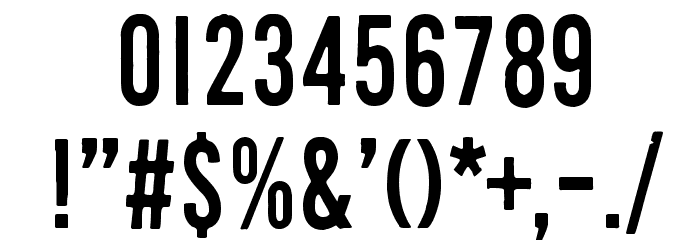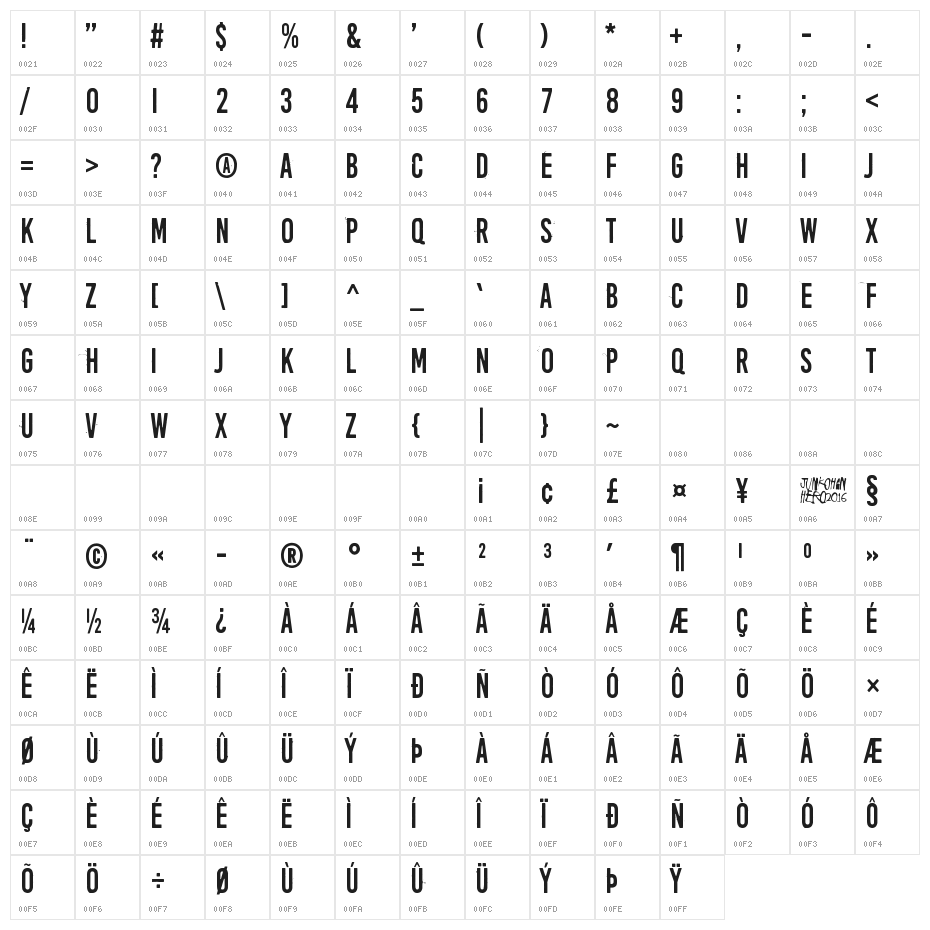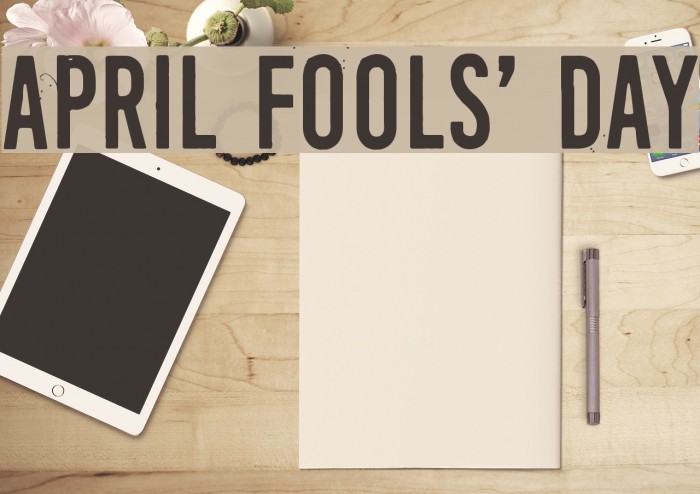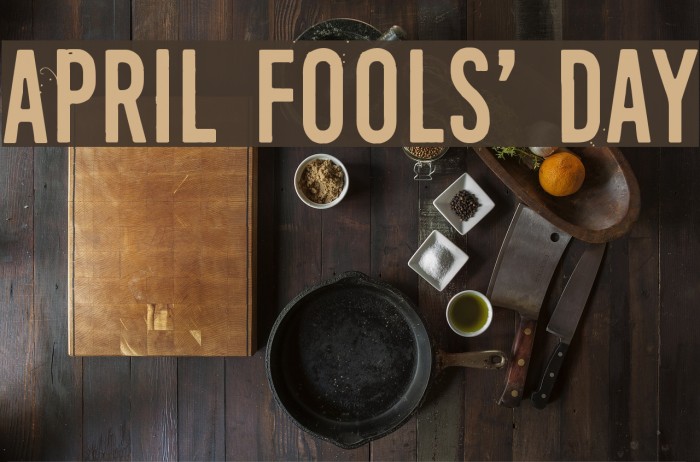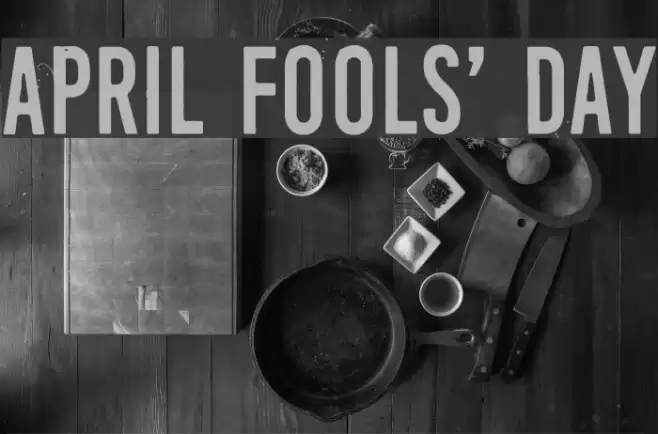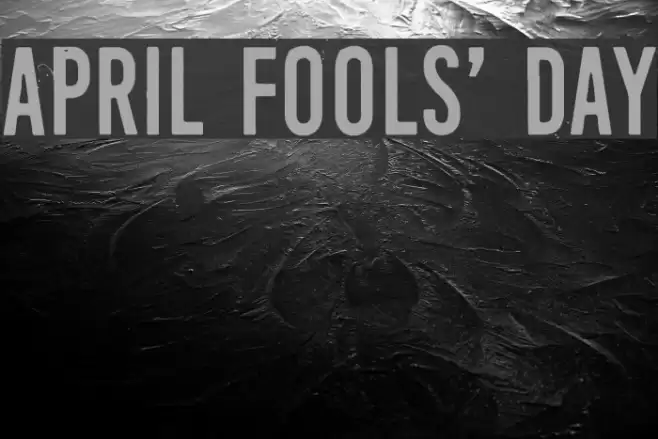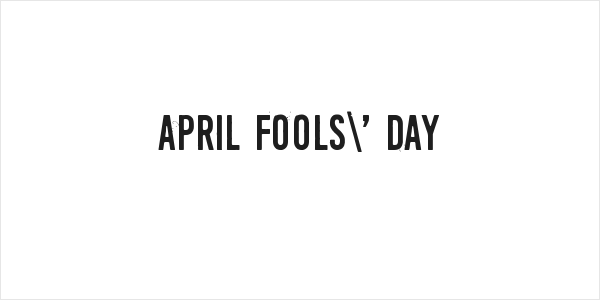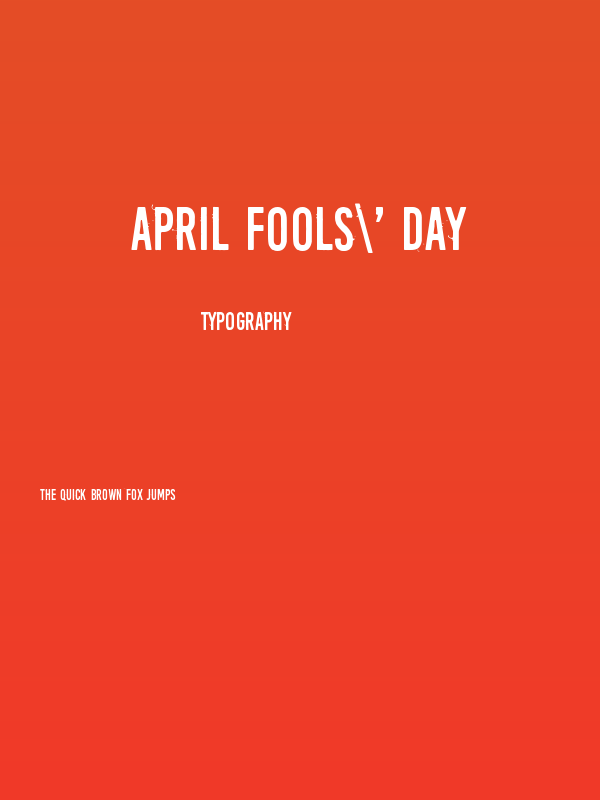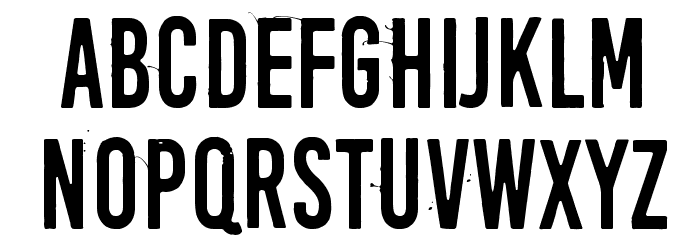
April Fools' Day Font
April Fools' Day Description
This font features a bold and impactful design with a slightly distressed texture, giving it a vintage and rugged appearance. The uppercase letters are uniform in height and width, creating a strong and cohesive look. The numbers and special characters maintain the same boldness, ensuring consistency across all elements. The font's distressed texture adds character and a sense of authenticity, making it ideal for projects that require a touch of nostalgia or a handcrafted feel. Its boldness ensures readability even at smaller sizes, while the uniformity of the characters provides a clean and organized appearance.
| Proposed Projects | Ideal for posters, branding, packaging, and vintage-themed designs. |